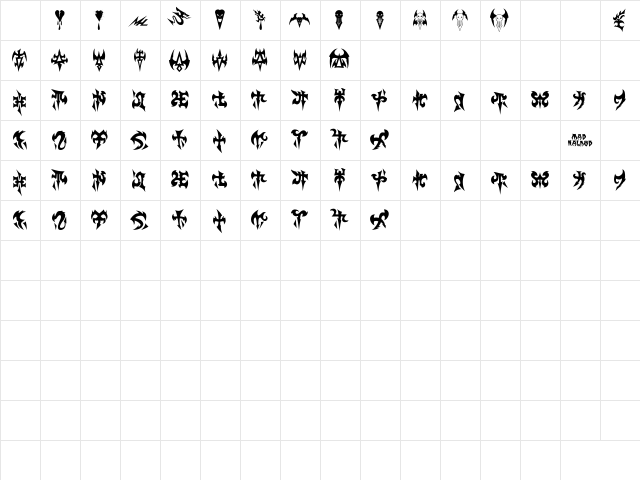
Dark_Eldar Bold Font Preview
Dark_Eldar Bold
Dark_Eldar Bold Font Details
Design Context for Dark_Eldar Typeface
Dark_Eldar is a composed and adaptable typeface that performs quietly and consistently across a wide range of design contexts. Its bold stroke weight gives it real presence on the page.